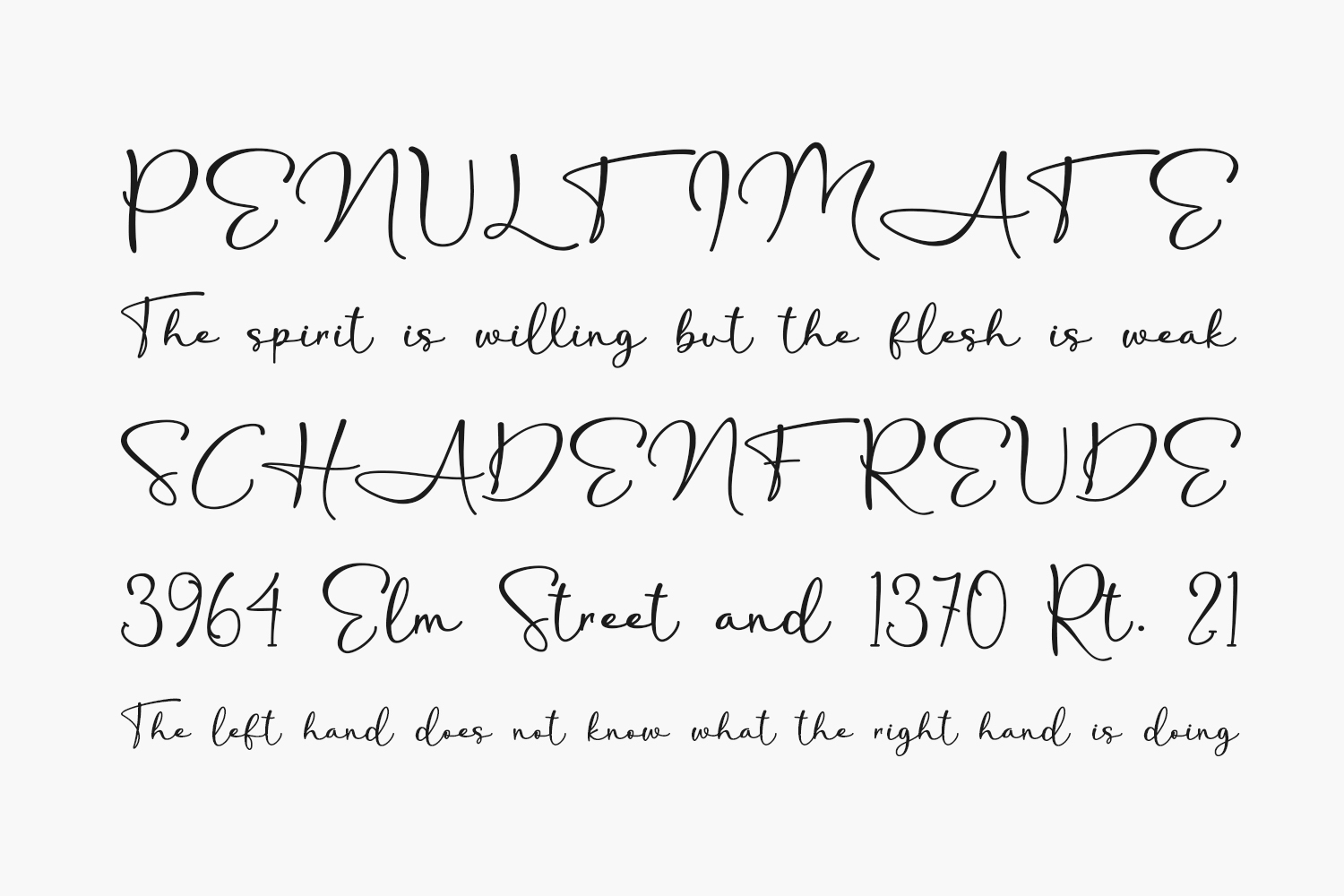
Febriella Free Font is a lovely script font featuring charming, playful characters that seem to dance along the baseline. It will add a luxury spark to any design project that you wish to create. Febriella Free Font was designed by Letterafa Studio and is free for personal use only. Please purchase the full version for commercial use.